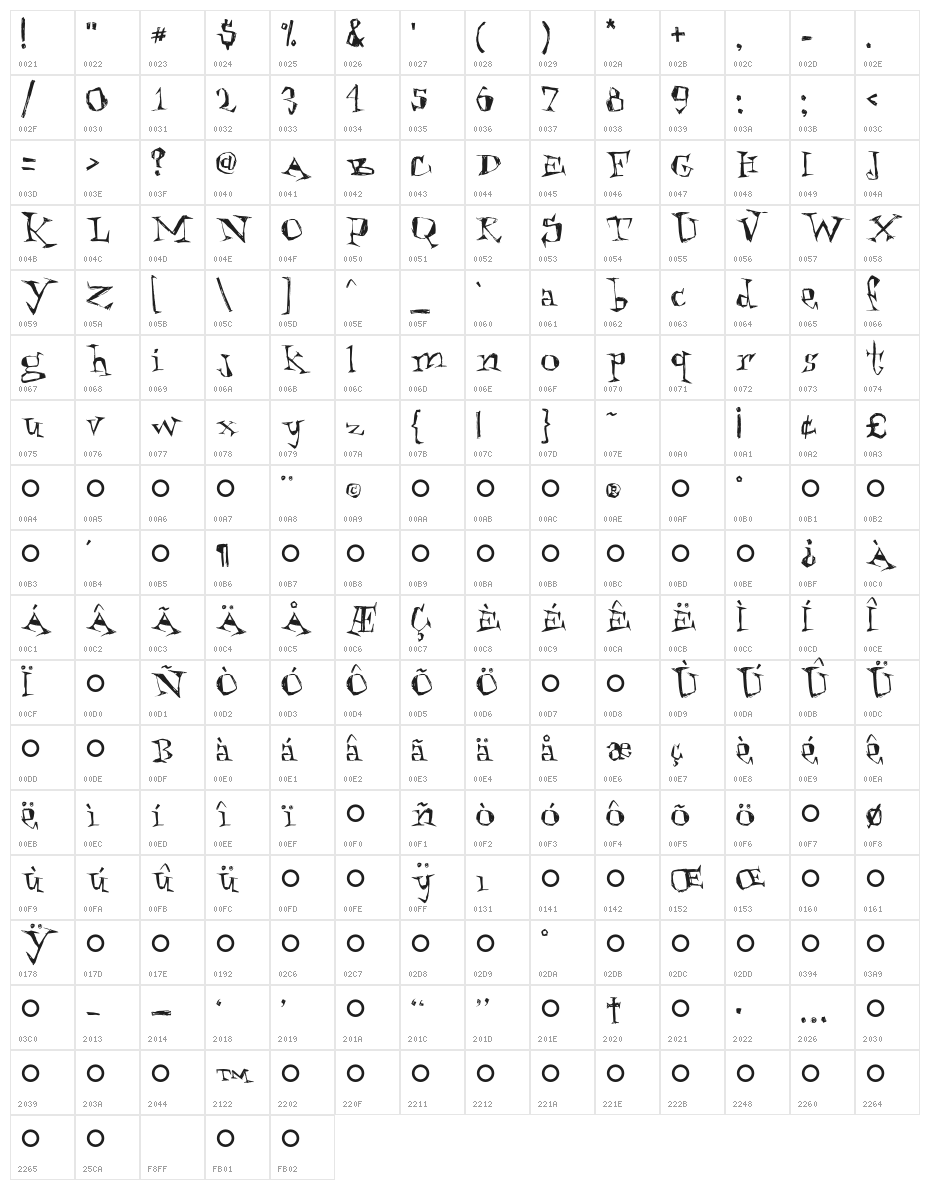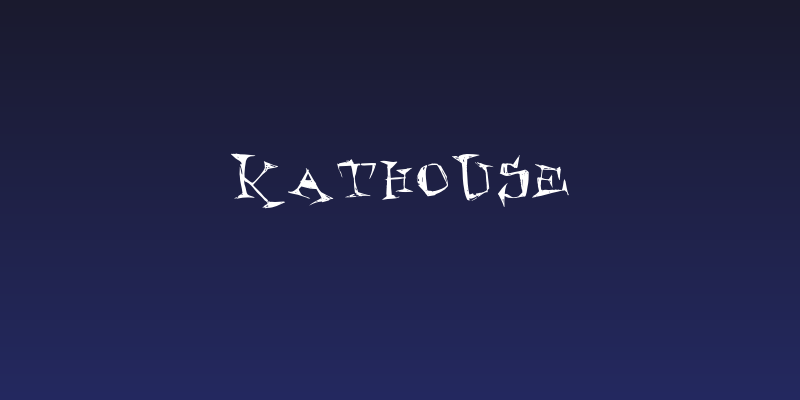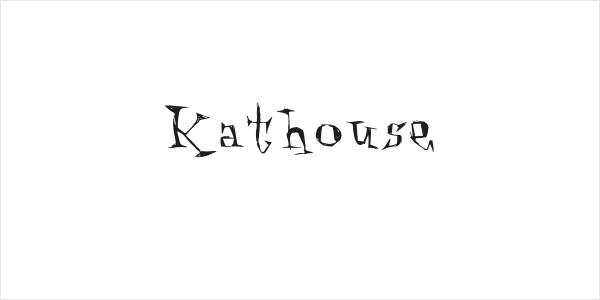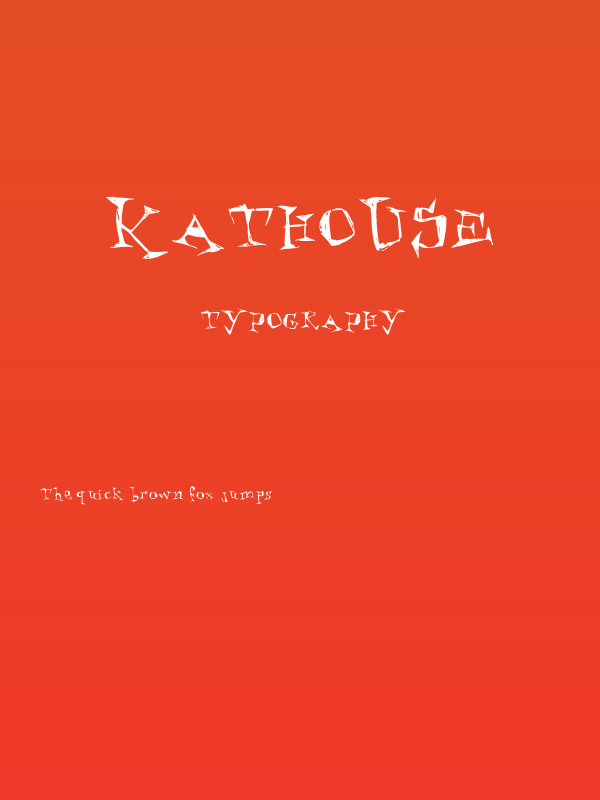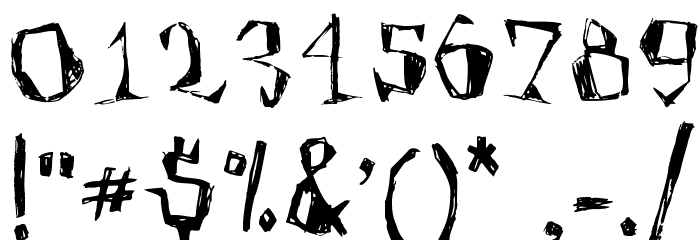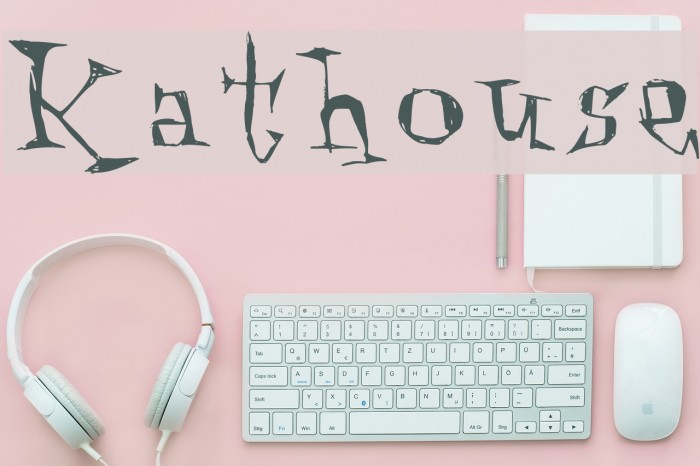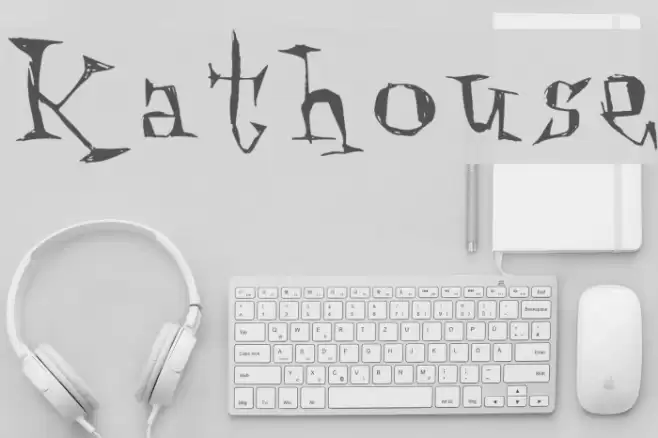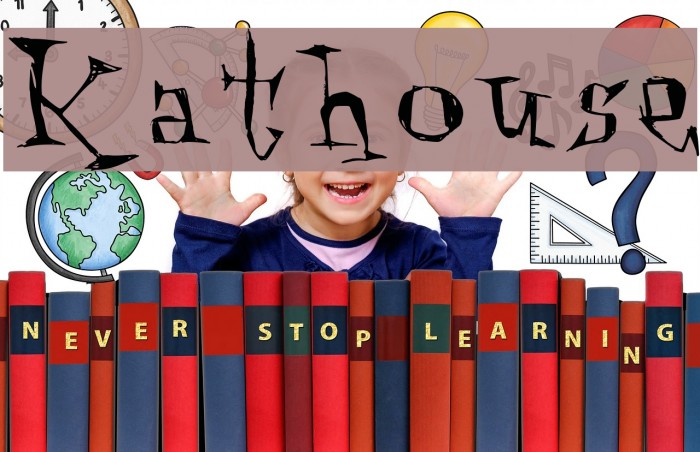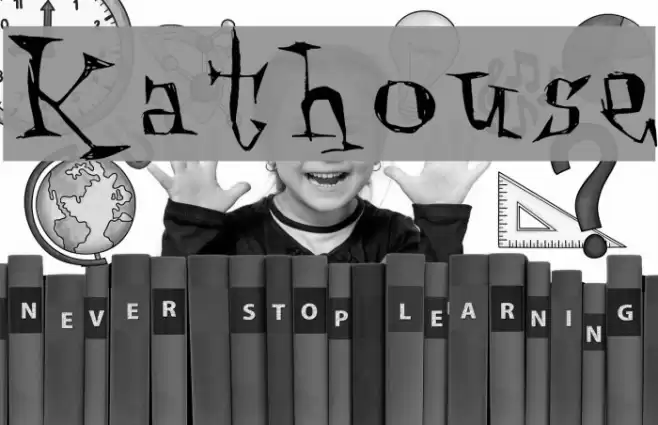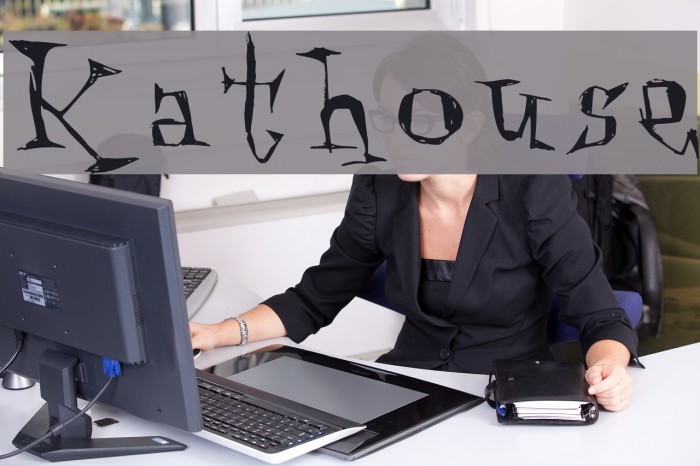
Kathouse Font
Kathouse Description
This font features a highly decorative and artistic style, characterized by its irregular, jagged edges and hand-drawn appearance. Each character is uniquely crafted, giving the font a dynamic and energetic feel. The uppercase letters are bold and commanding, while the lowercase letters maintain a consistent style with slightly more subtlety. The numbers and special characters follow the same artistic theme, ensuring a cohesive look across all elements. This font's distinctive design makes it ideal for projects that require a bold statement or an artistic touch.
| Proposed Projects | Ideal for album covers, posters, artistic branding, and creative event invitations. |